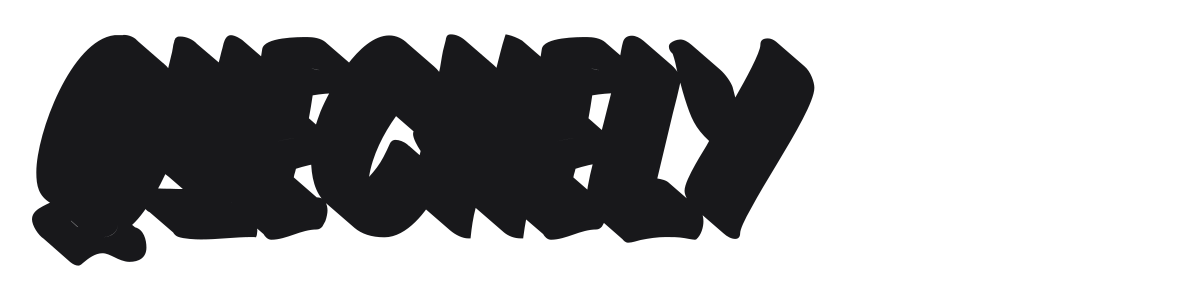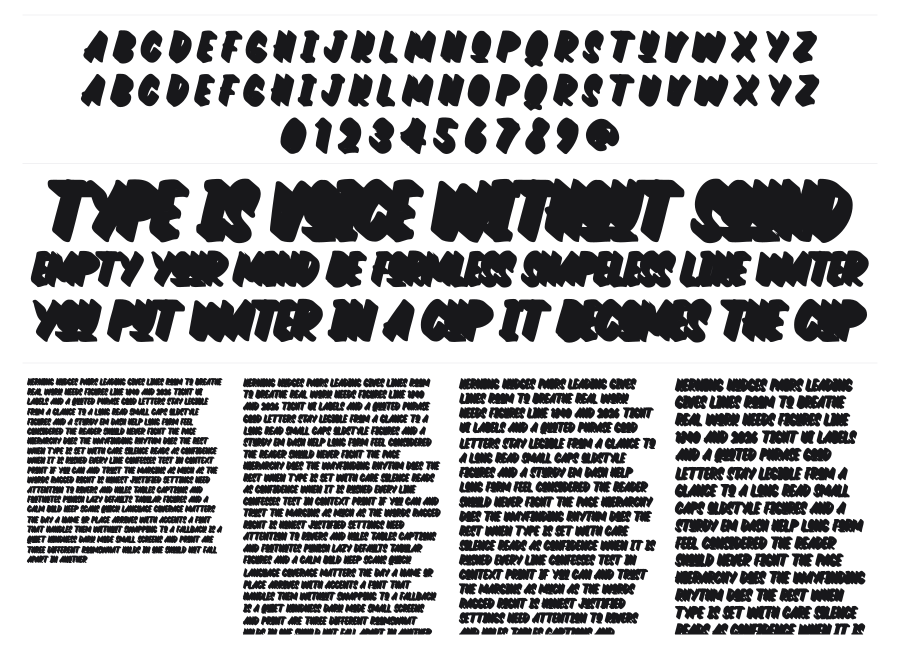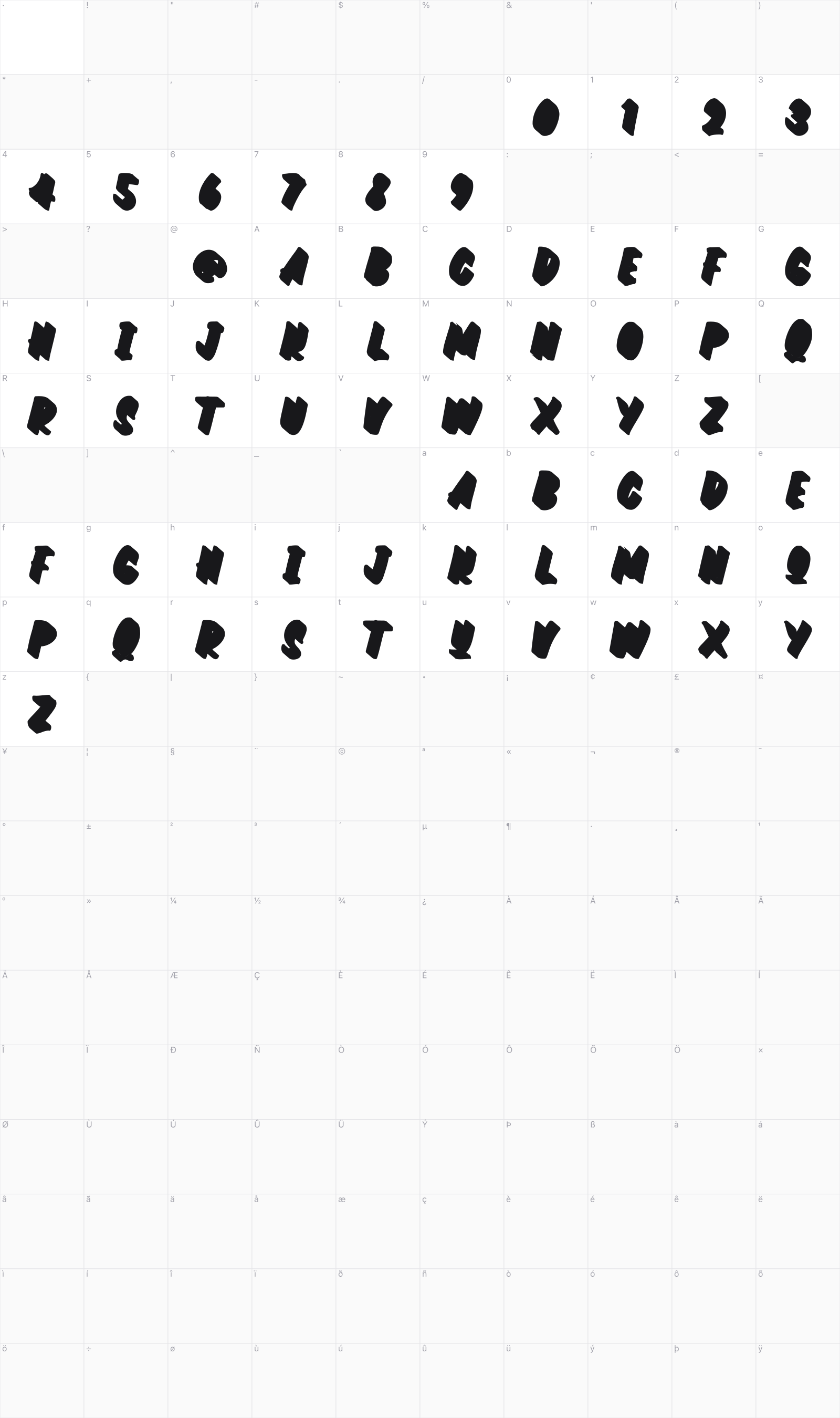
Quechely
Quechely is a heavy retro display font with thick, slanted characters and a bold dimensional shadow that makes text appear to leap off the page. The letters lock together in a dense, jagged mass that channels 1970s psychedelic sign painting and vintage American pop culture. It commands attention at large sizes and thrives in posters, album art, and branding that wants raw visual impact.